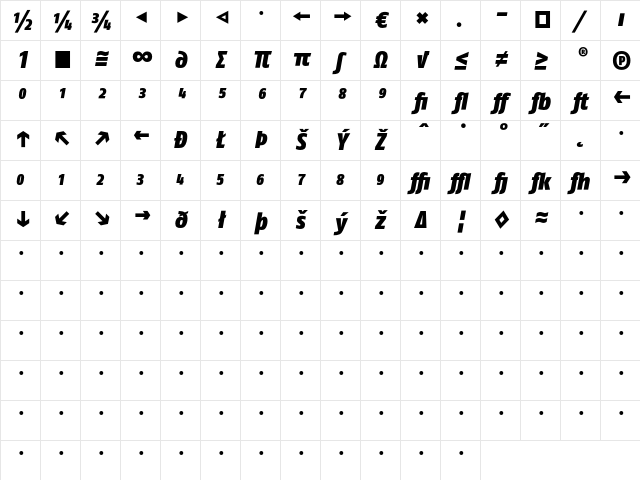
FagoCo BlackItalicExp Free Font
FagoCo BlackItalicExp
Style: BlackItalicExp
Complete FagoCo BlackItalicExp glyph index. Displaying only characters natively supported by FagoCo BlackItalicExp font.
Design Context for FagoCo
FagoCo is a composed and adaptable typeface that performs quietly and consistently across a wide range of design contexts. The slanted form adds forward momentum and visual energy.
Pro Tip: Use FagoCo for emphasis, pull quotes, and subheadings where its slanted energy can add rhythm to the layout.